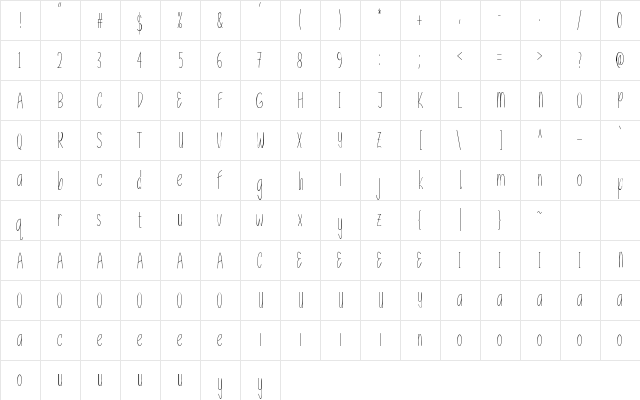
Unicorn Handwritten Regular
Design Context for Unicorn Handwritten Typeface
Unicorn Handwritten flows with the natural rhythm of handwritten lettering, making it ideal for designs that call for warmth and personal expression.
Font Pairing: Combine Unicorn Handwritten with a simple geometric sans for maximum contrast — the tension between flowing curves and clean structure is a classic typographic pairing.
Pro Tip: Use Unicorn Handwritten for short runs of text — names, titles, or taglines. Extended body copy in script faces tires the eye quickly.